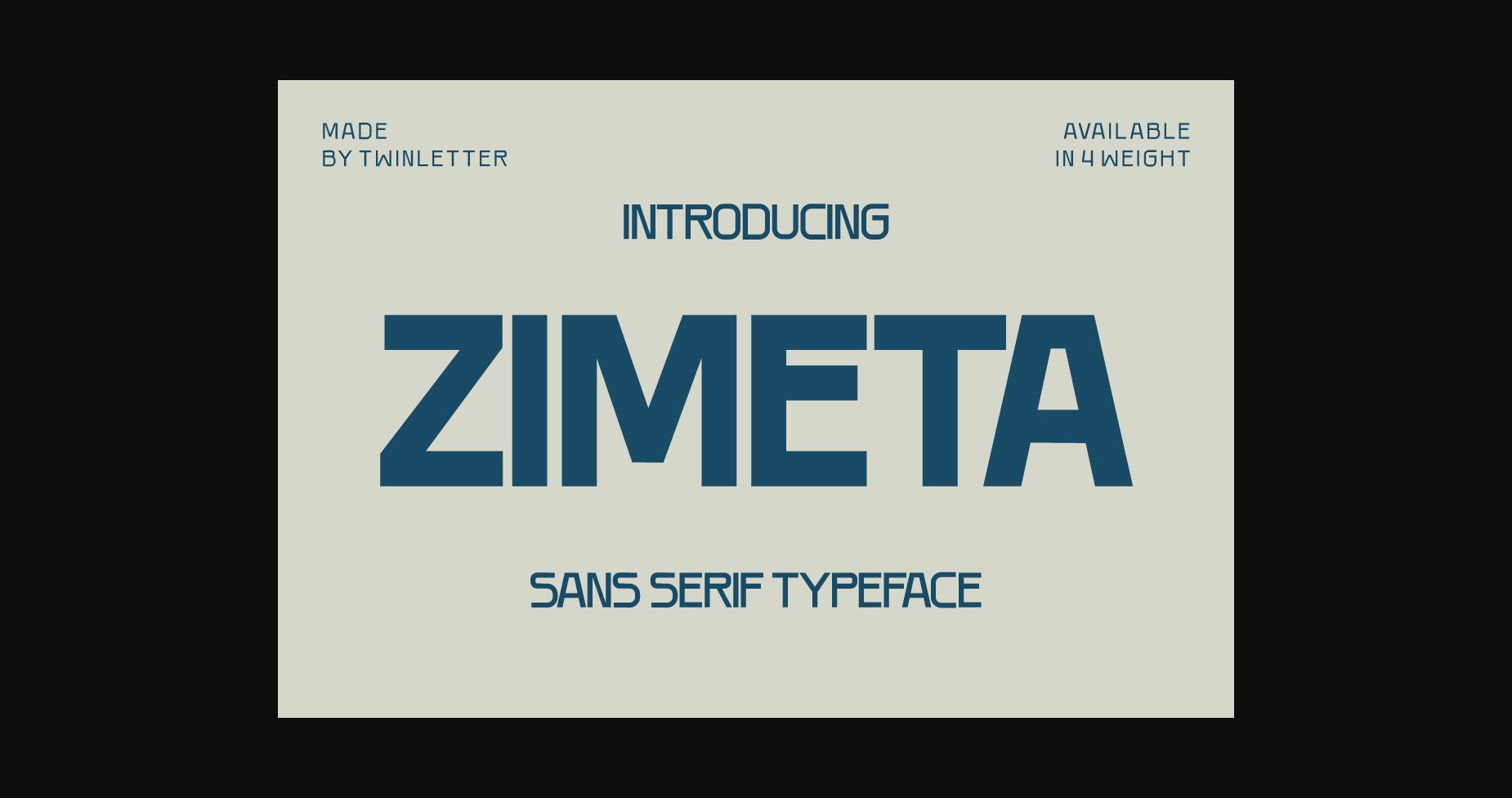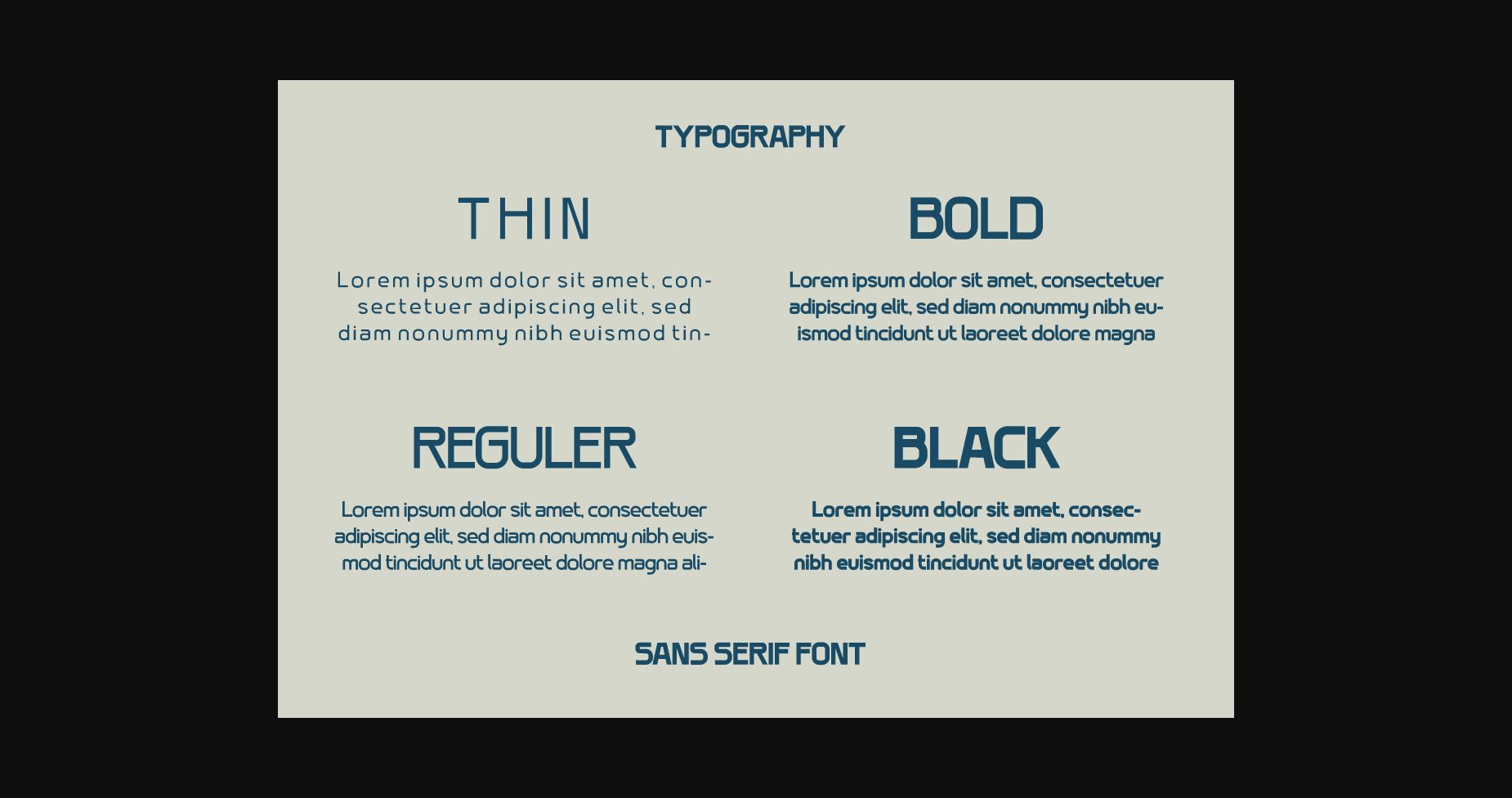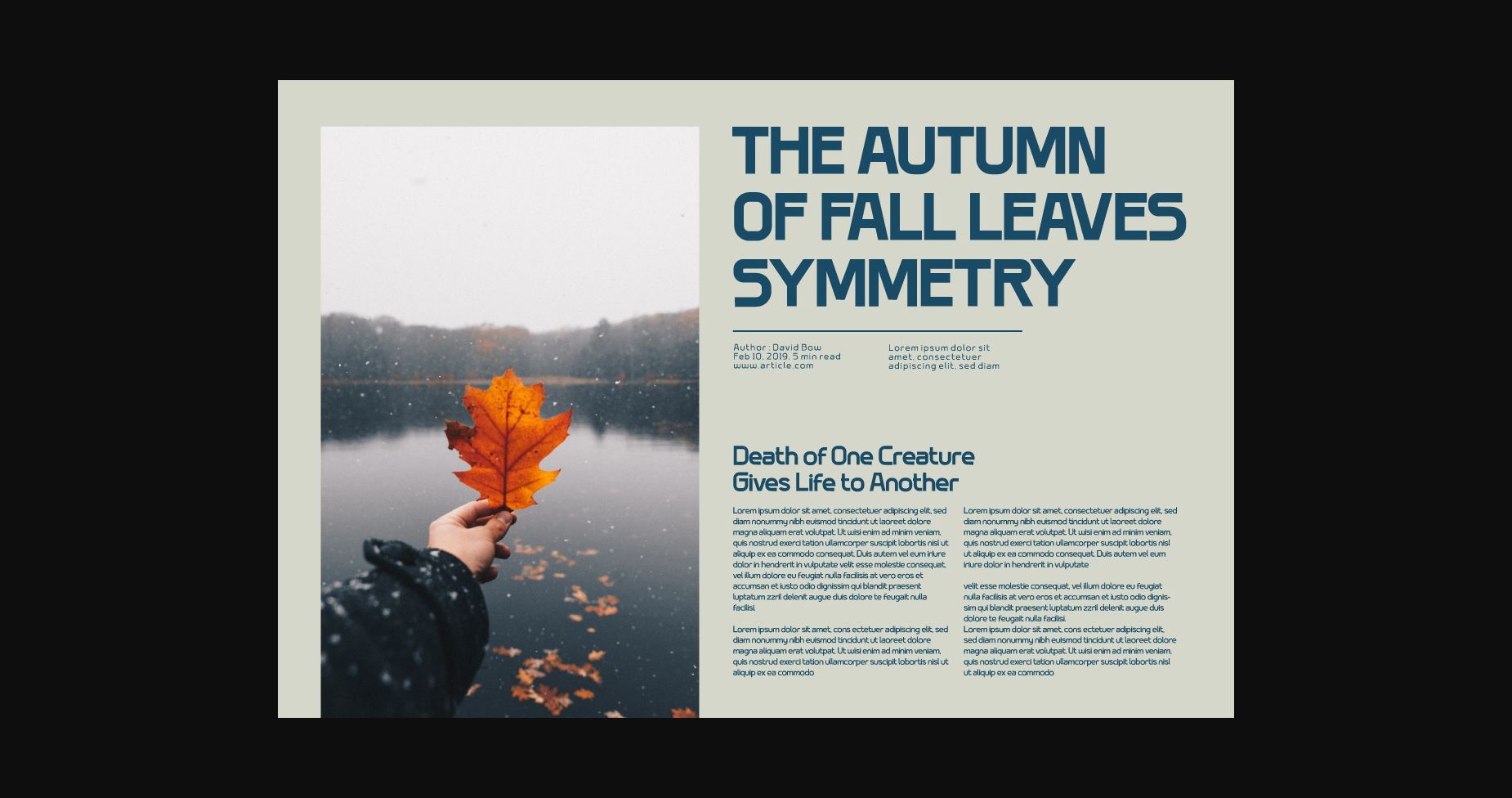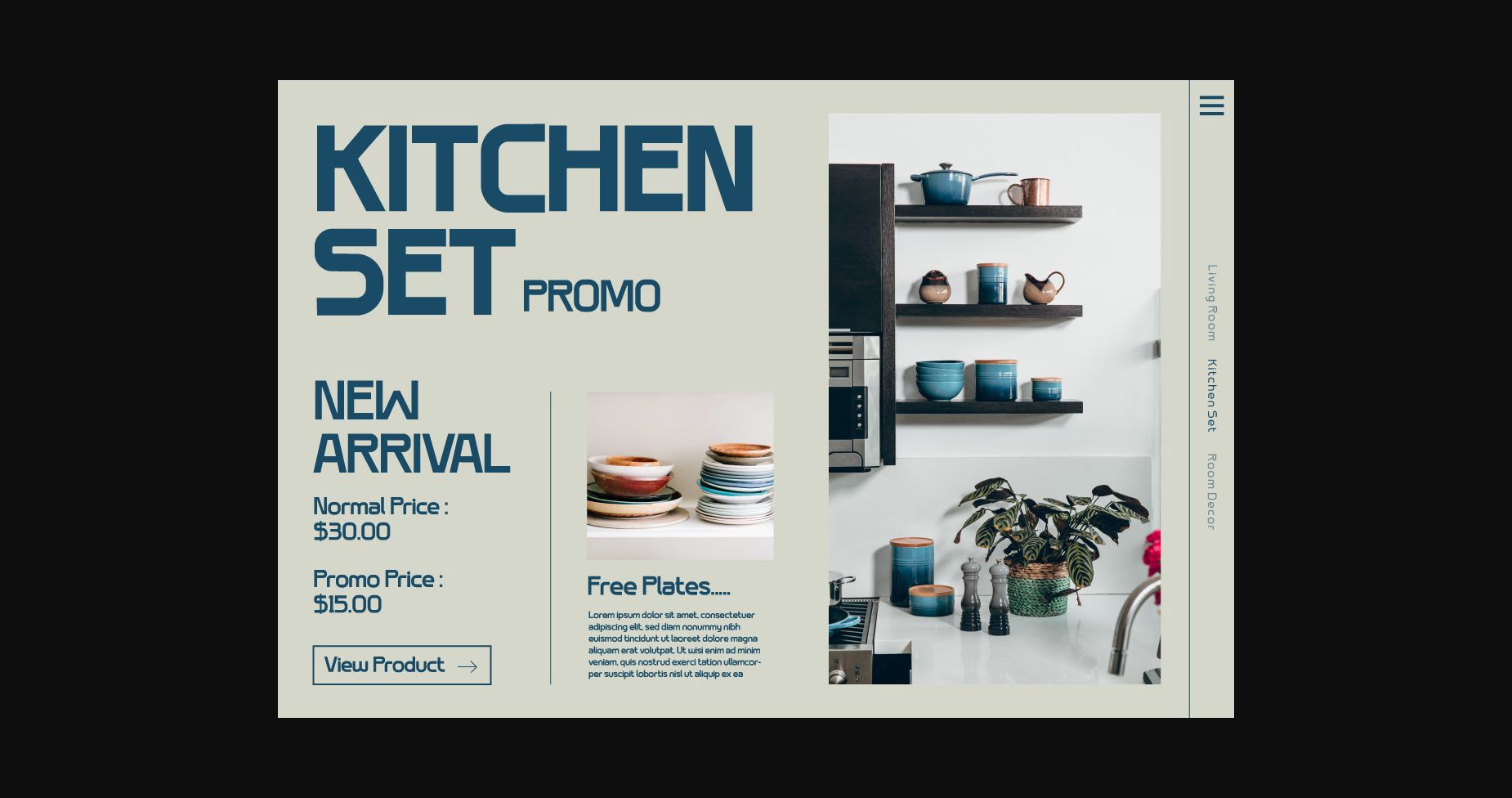
About Zimeta Font
Zimeta is a sans serif font with a unique style created specifically to satisfy your diverse demands. A friendly font with a strong character makes your project bold and powerful.
Of course, your various design projects will be perfect and extraordinary if you use this font – because this font is equipped with different character styles for titles, subtitles, and body text.